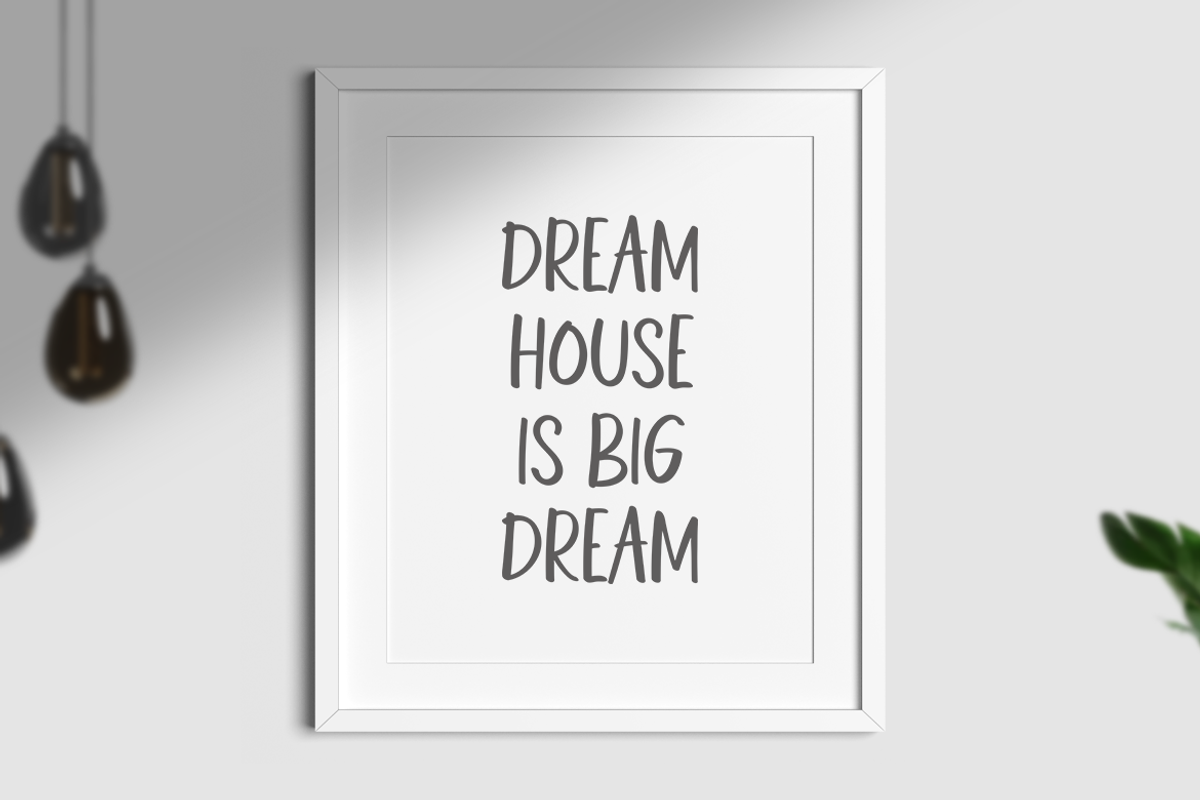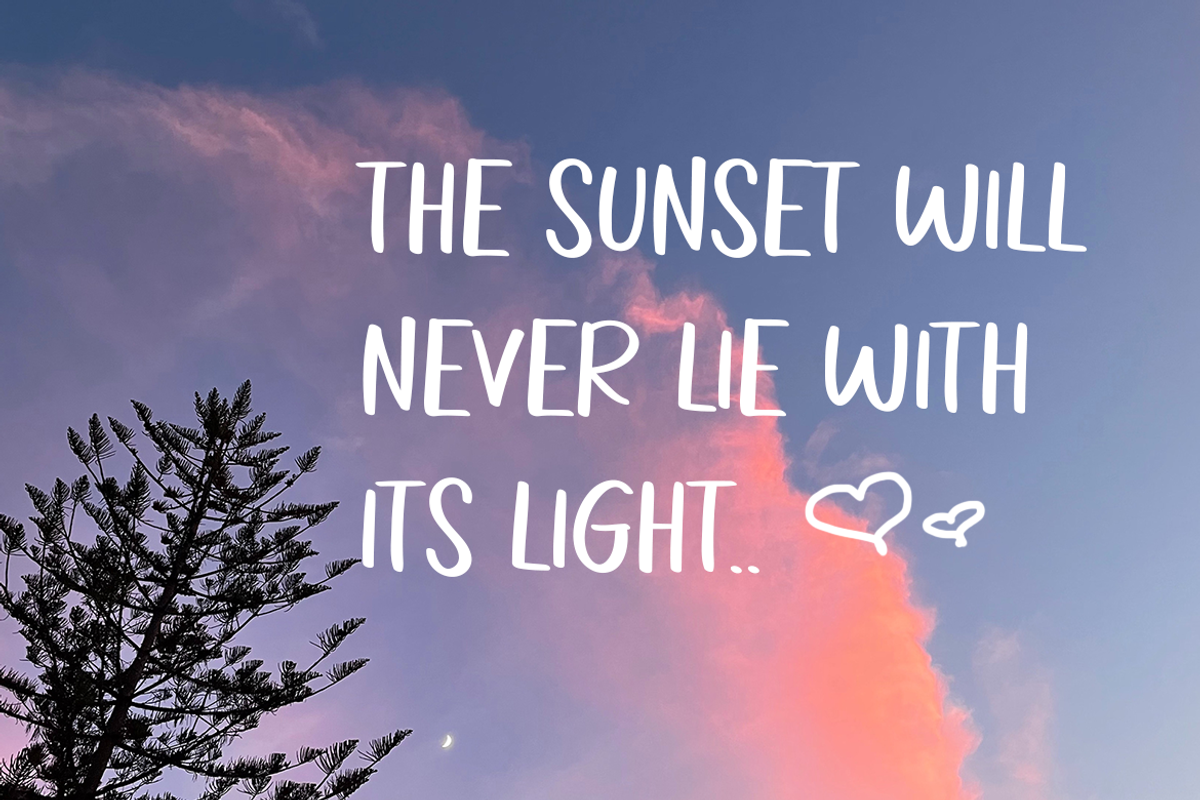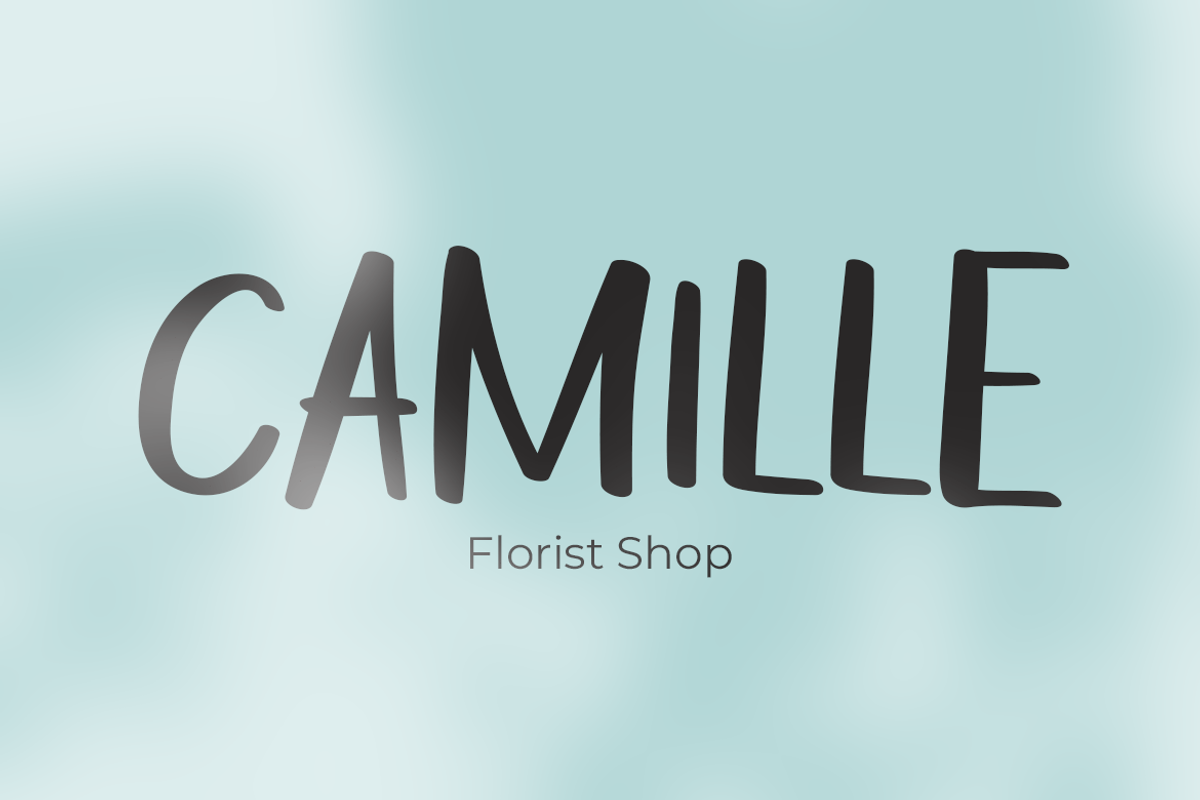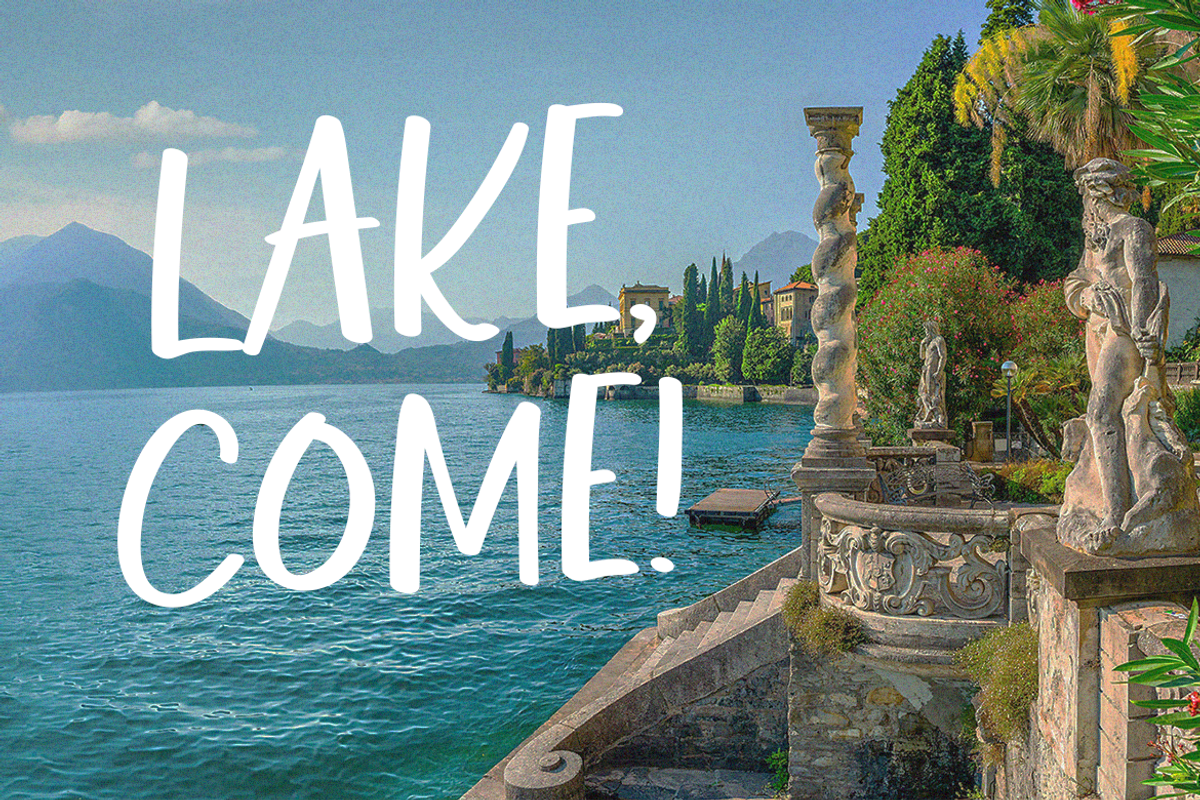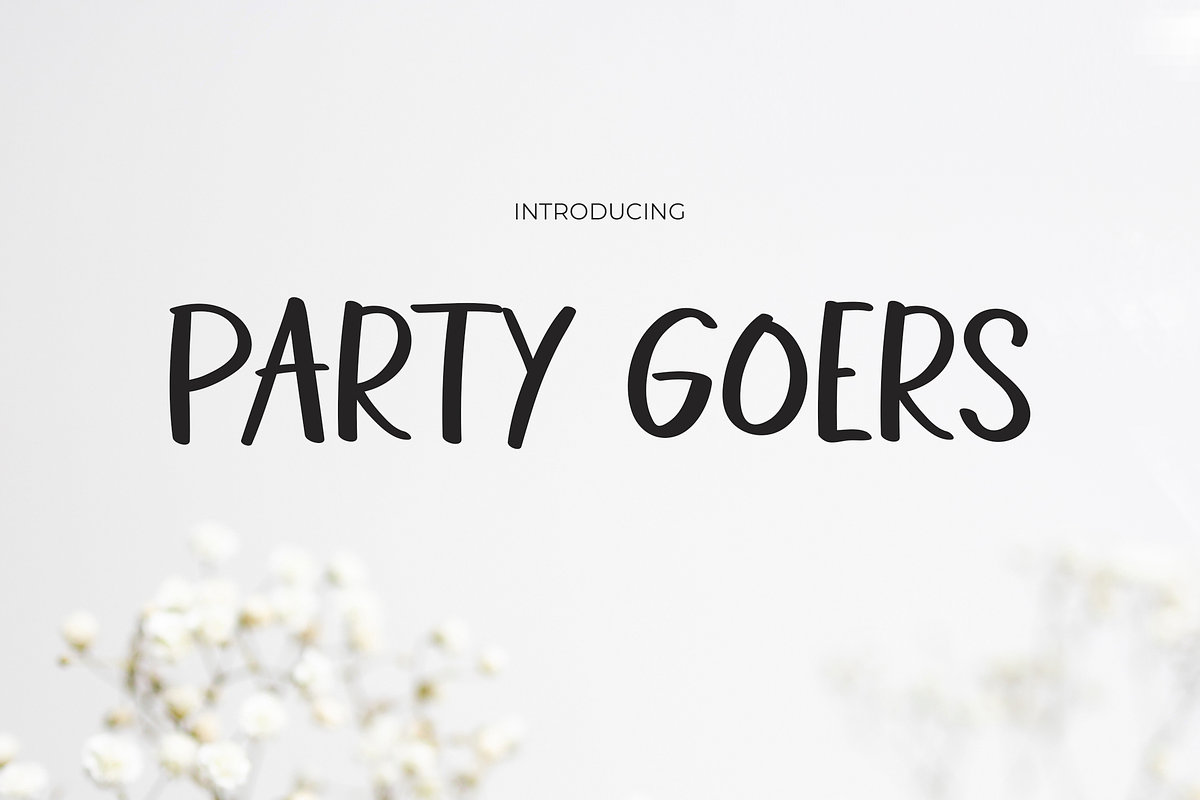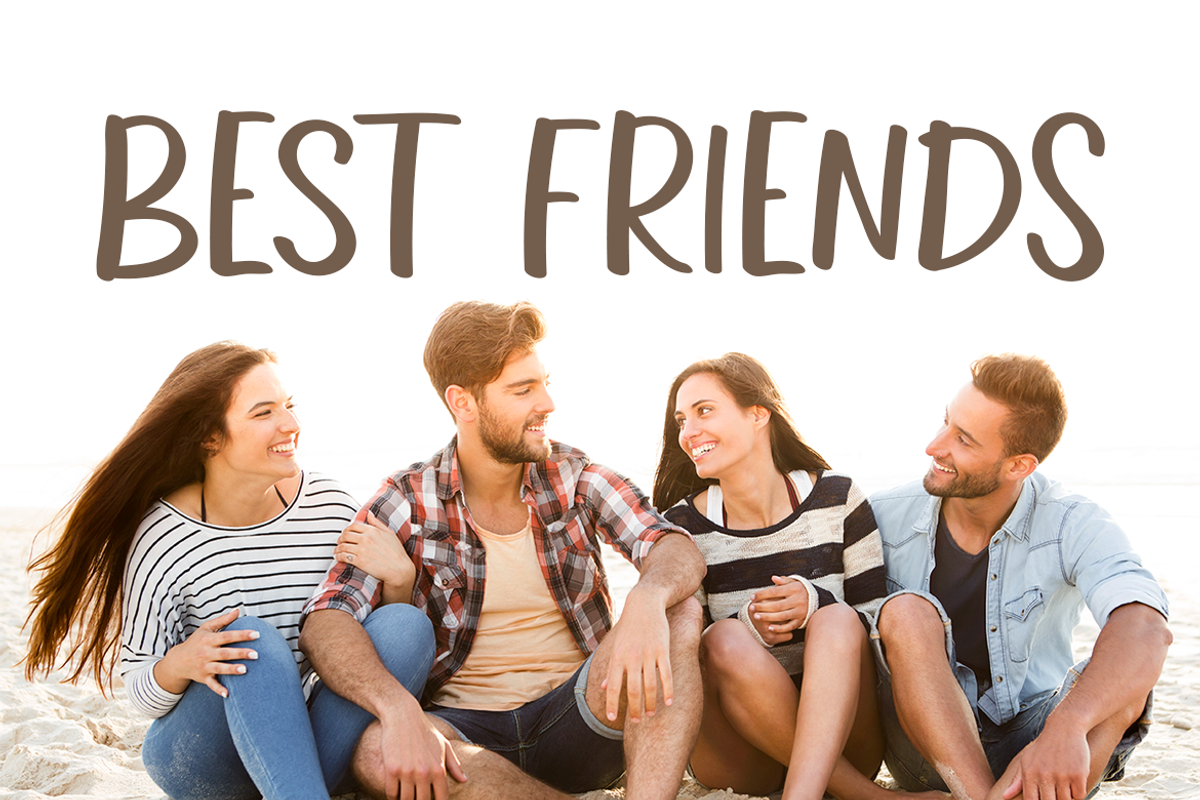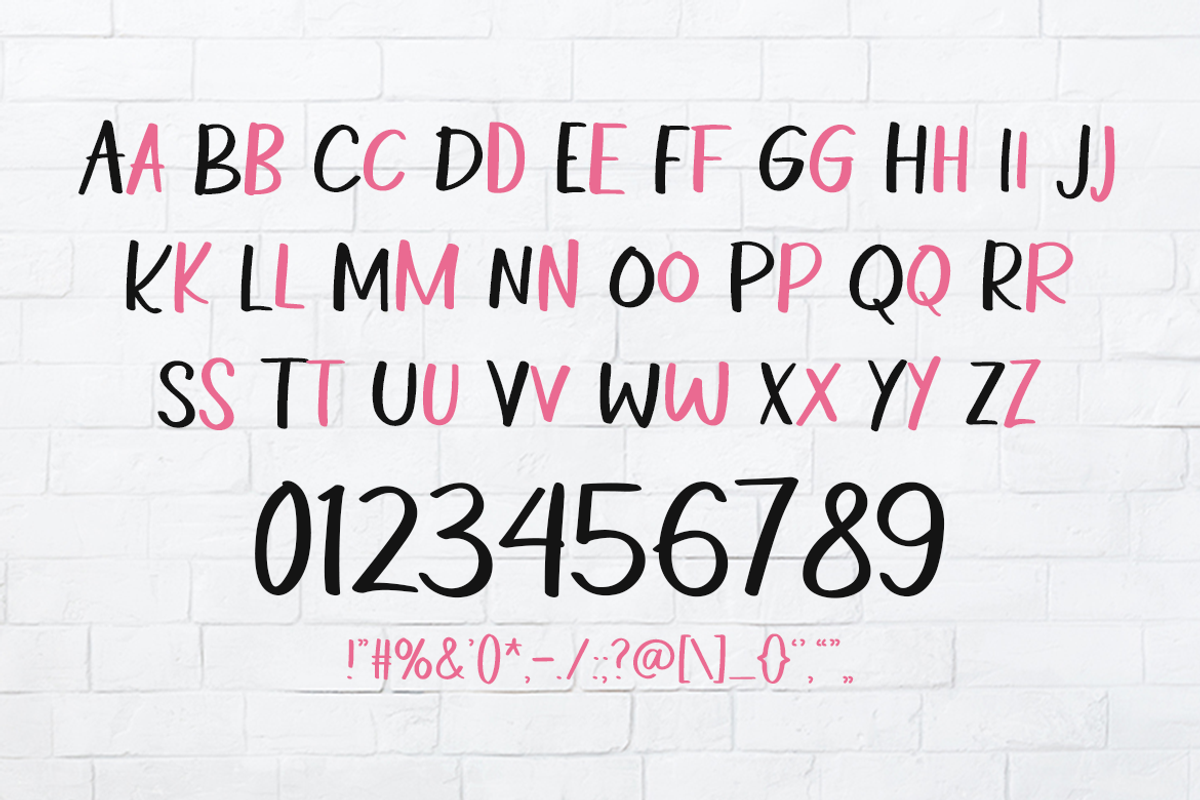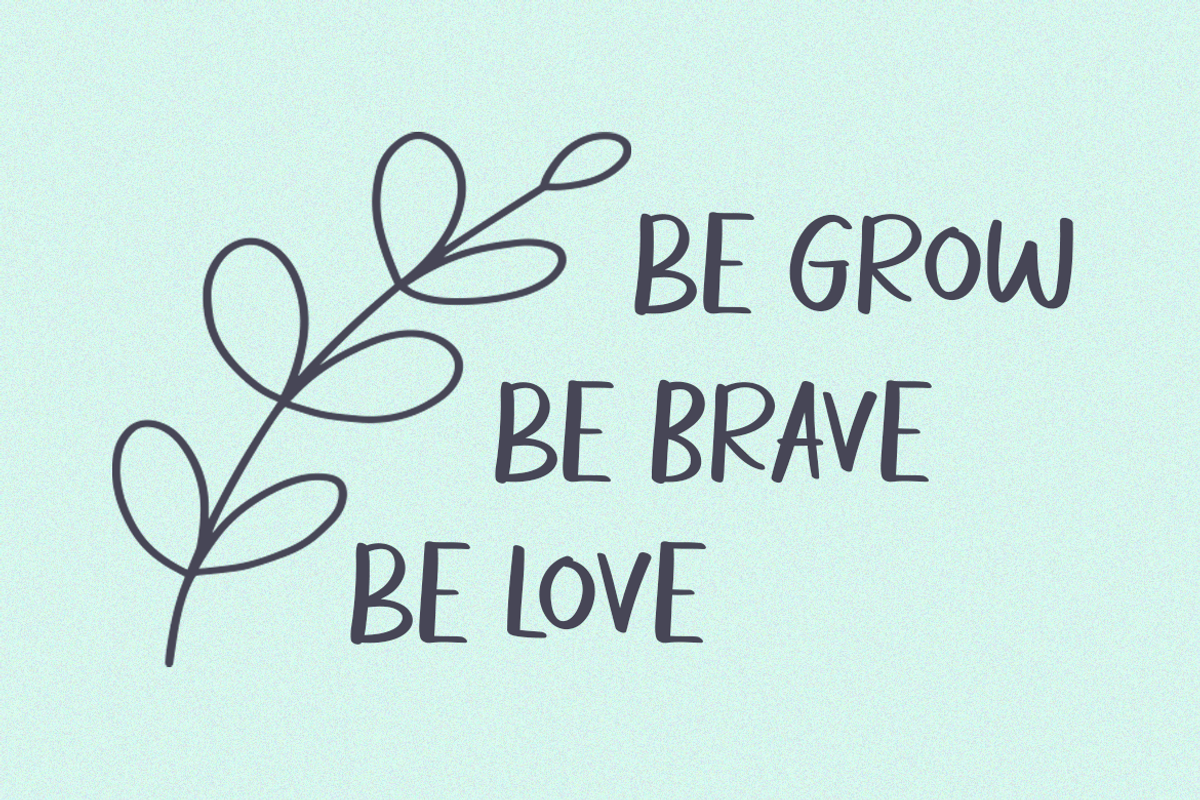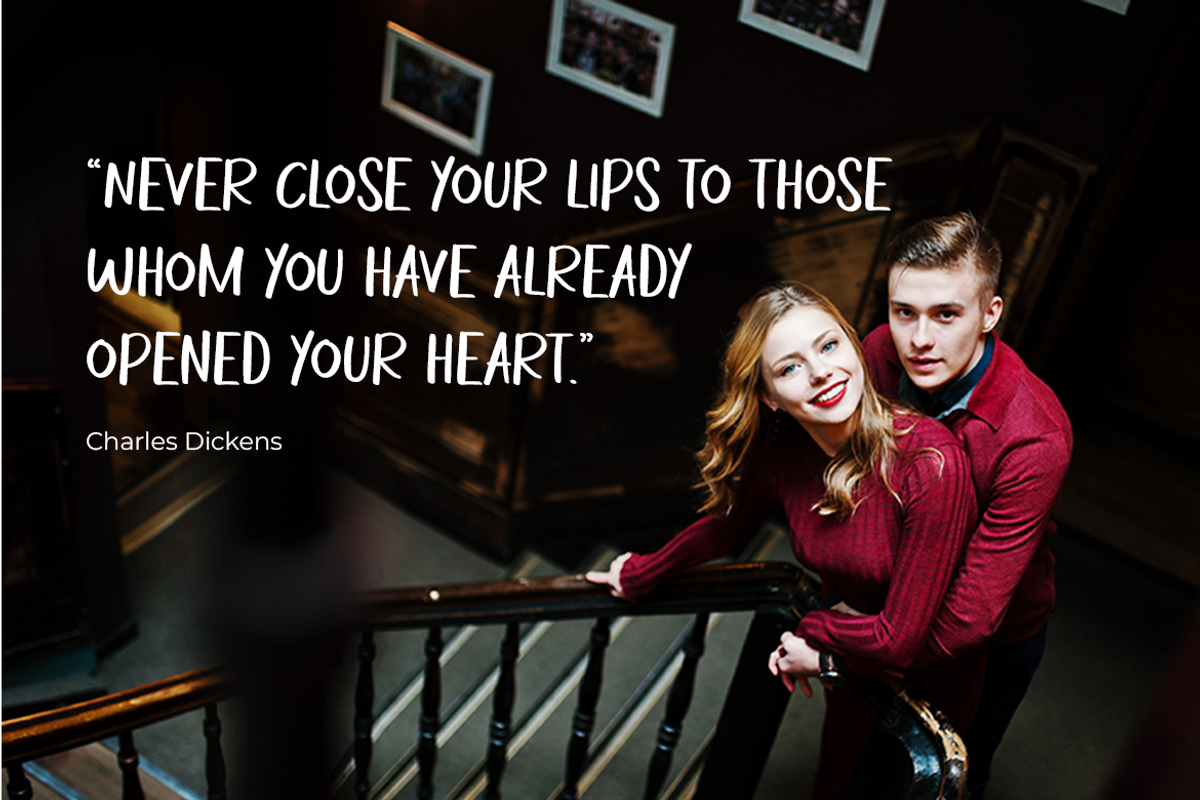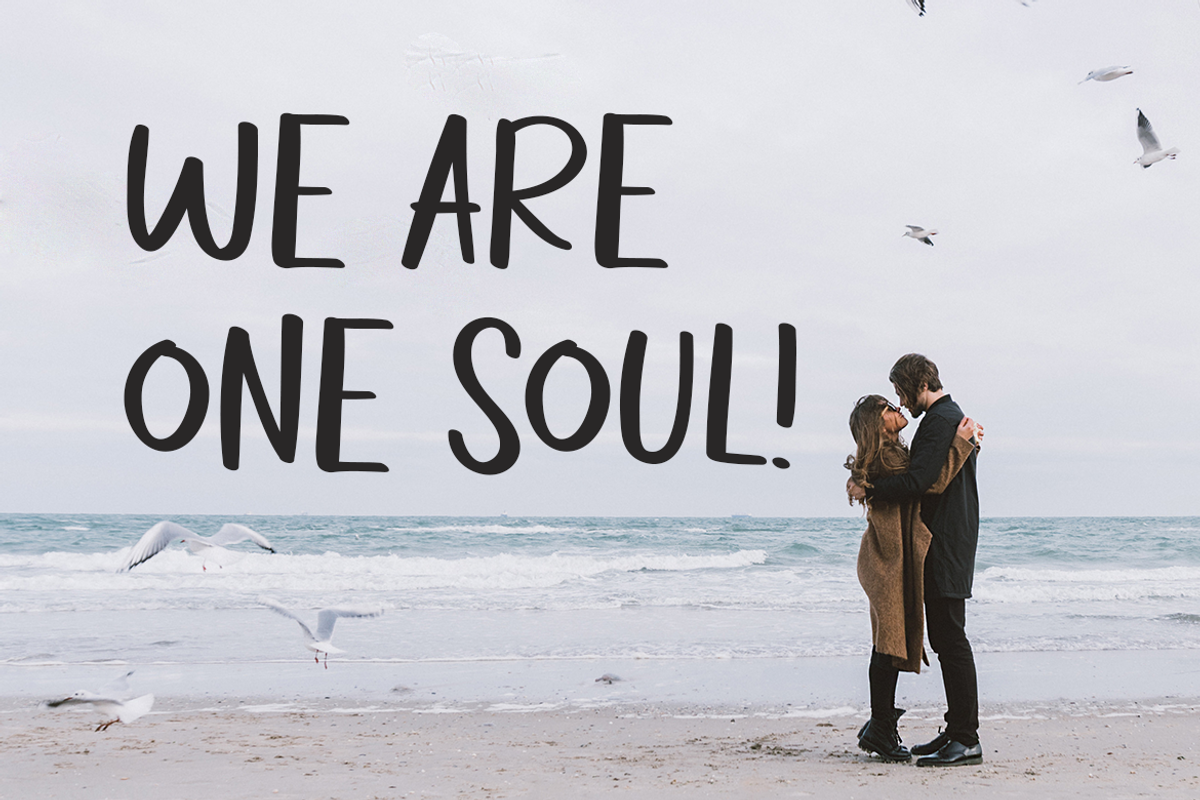
PARTY GOERS
Party Goers – A Lively Handwritten Sans Serif font
Party Goers is a vibrant font that captures the energy and spontaneity of a handwritten style, paired with the clean, modern appeal of sans serif. This font is a celebration of fun and liveliness, making it a perfect choice for projects that require a touch of playfulness and charm. In logos, Party Goers adds a personal and friendly feel, making brands appear more approachable and dynamic. Its casual yet distinct style is ideal for quotes, where it adds a personal touch, making each word feel like it’s penned with joy.
For invitations, this font sets the tone for fun and memorable events, inviting guests with its cheerful and engaging appearance. When used in posters and greetings, Party Goers conveys messages with an upbeat and friendly vibe, instantly lightening the mood. In the realms of packaging and branding, this font gives products a unique identity, one that’s both playful and welcoming. For book covers, headlines, and advertising, Party Goers ensures your message catches the eye and heart, communicating with an irresistible, joyful energy.